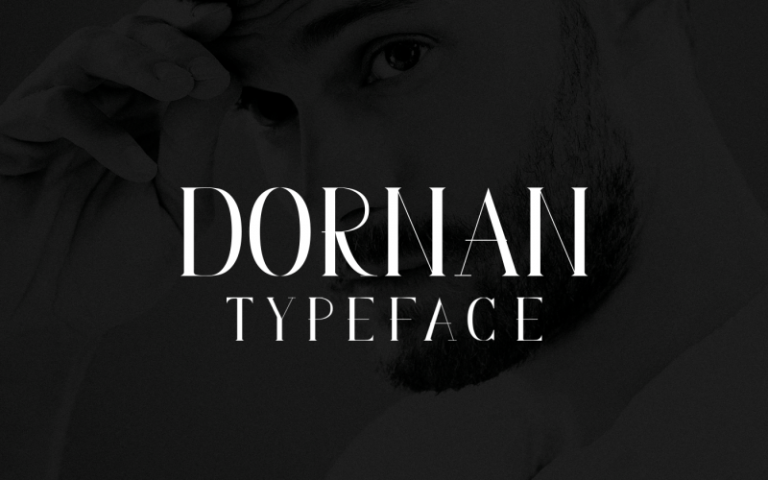
Dornan Typeface
Dornan is simple beautiful font with classy taste. Typographic font inspired by Jamie Dornan. Simple and casual strokes for the special occasion. Dornan – Elegant Serif Font has been crafted from scratch with a structural logic of its own: a fusion of pure geometry and optical balance.